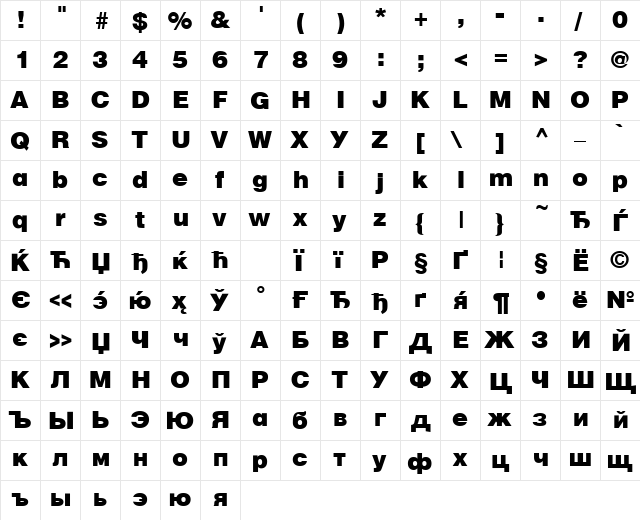
CyrillicHeavy Normal Font Preview
CyrillicHeavy Normal
Design Context for CyrillicHeavy Typeface
CyrillicHeavy takes a measured approach to typography — its balanced proportions and neutral character make it a reliable workhorse for both digital and print work.
Pro Tip: Use CyrillicHeavy in both headline and body roles to test its range before committing to a single application.